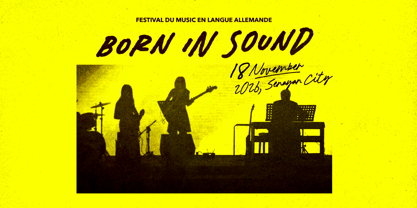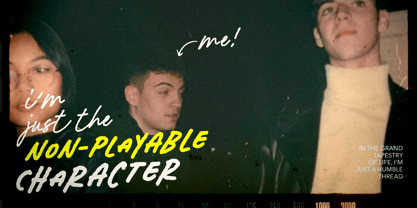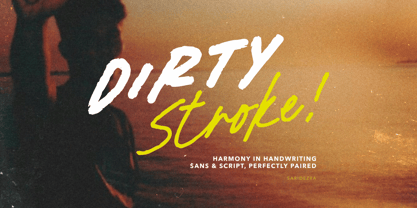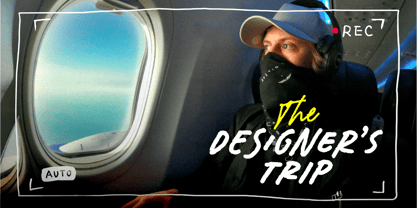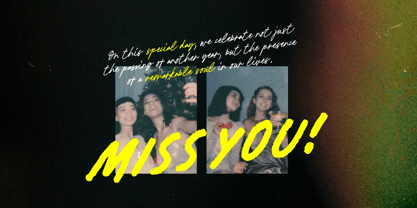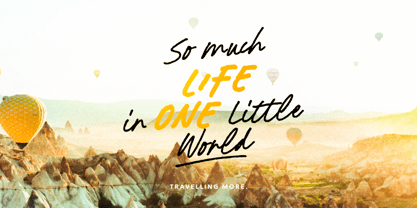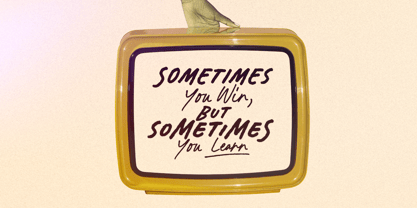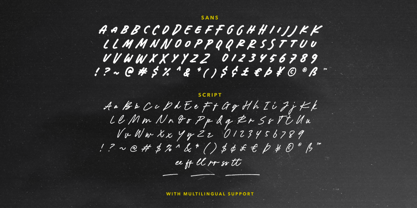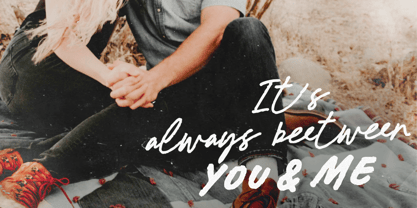
Dirty Stroke
by Sarid Ezra
The Dirty Stroke Font Family was designed by Sarid Ezra and published by Sarid Ezra. Dirty Stroke contains 2 styles and family package options. More about this family
Dirty Stroke is an organic handwritten font duo with slightly rough edges. This package contains readable sans and natural signature script. You can use this font for any purposes such as quotes, poster, etc. This font is a perfect choice if you need something natural yet readable. Dirty Stroke also support multi language!